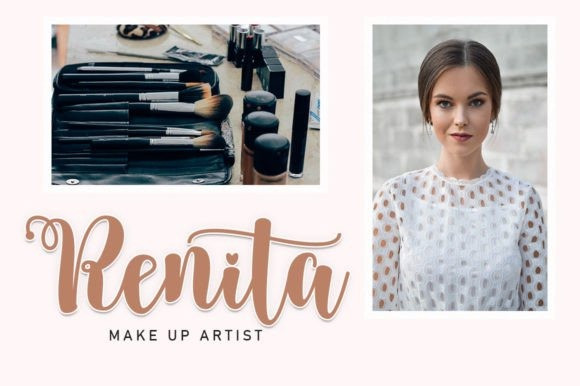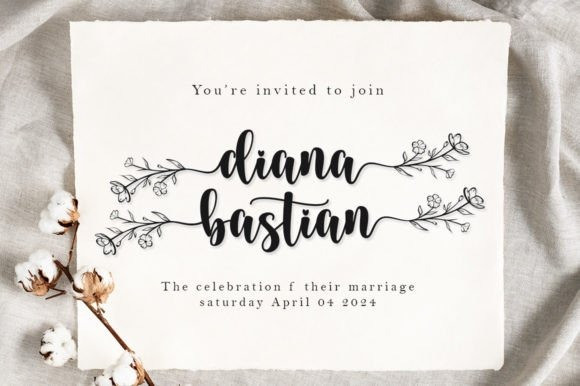
Soulmate Font
Soulmate Script Font is an amazing handwritten font perfect for logos, wedding invitations, titles, T-shirts, letterheads, signage, labels, news, posters, badges, and many more.